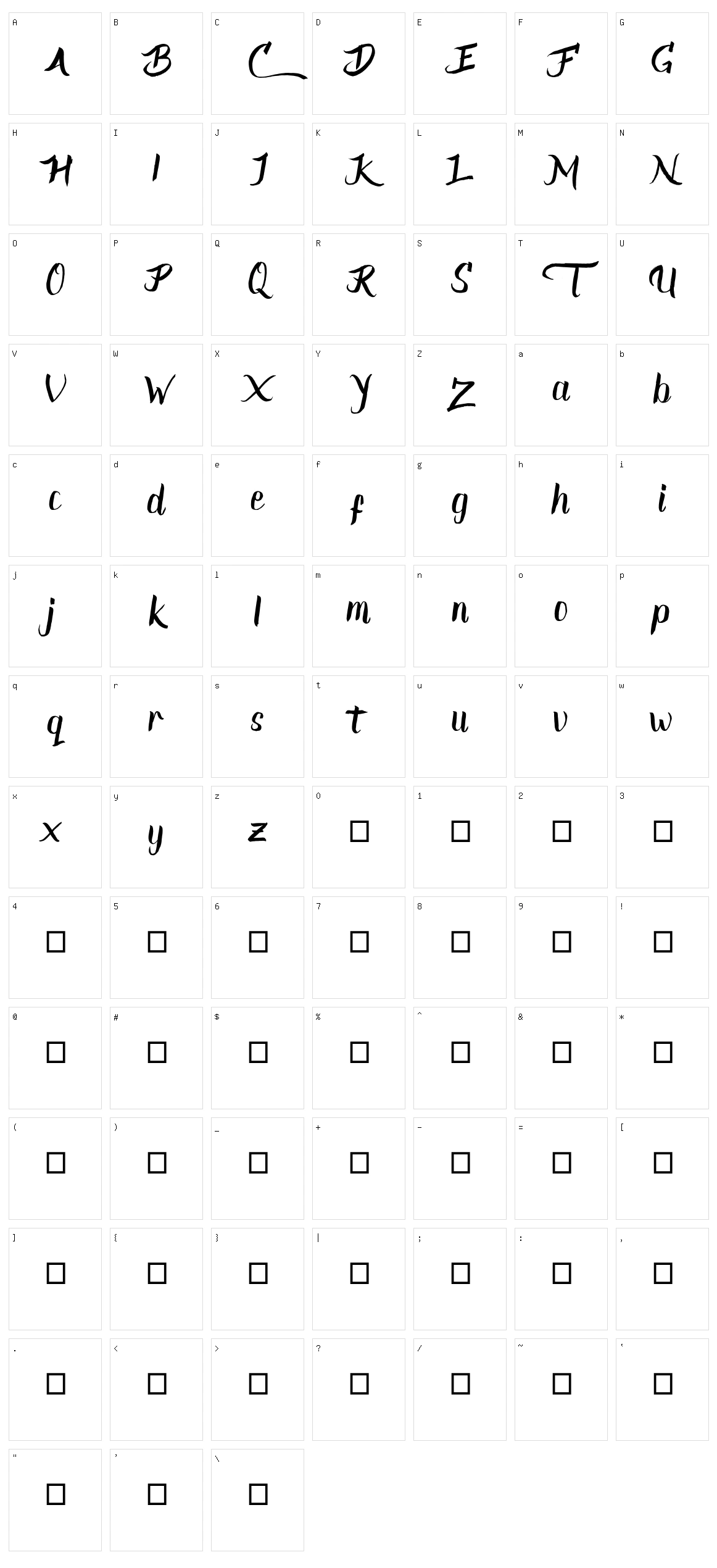
The free font The Creative is carefully designed by SSI.Scraps, showcasing a thoughtful balance of creativity and usability and falls under the Script font style. When you download the ZIP file, it contains only 266.85 KB of font files, making it lightweight and quick to download. Please review the license details below to understand permitted usage and distribution rights. If license information is not available, we recommend using this font for personal projects only or contacting the author directly for commercial usage permissions.
The-Creative is a demo font.